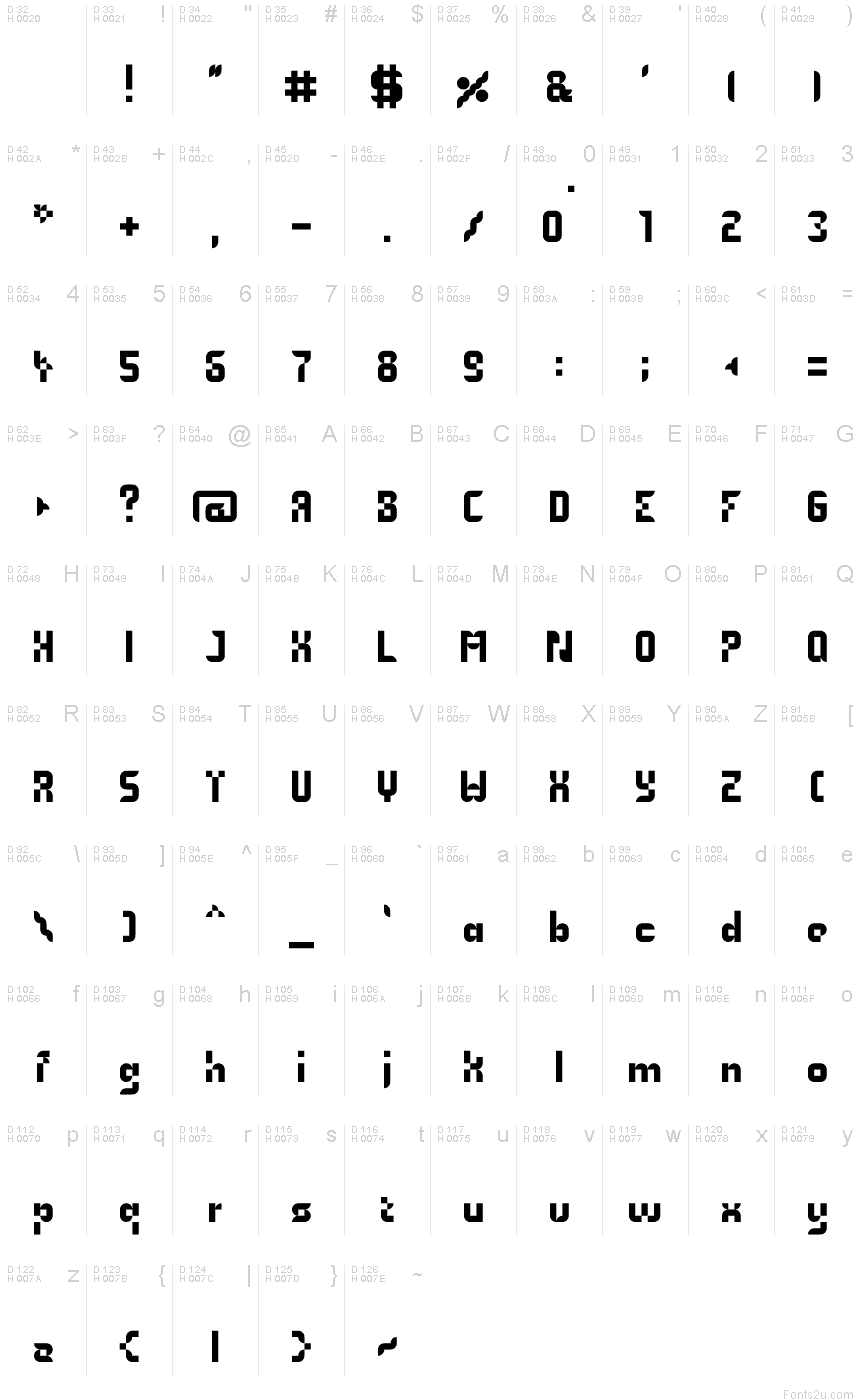
Blockswosh, designed by Lorenz Fidel Huchthausen of FSI FontShop International GmbH, is a free techno display font with broad, weighty letterforms and sharply cut interruptions. Its modular construction mixes squared inner spaces with rounded outer curves, producing lettering that feels industrial yet deliberately playful in its broken, puzzle-like silhouette.
The arcade-like geometry can connect two quite different settings: game title cards and electronic music posters on one side, product packaging and streetwear graphics on the other. Its sliced shapes can also become interface buttons or parts of a circuit-themed emblem, turning individual letters into graphic components rather than neutral labels.